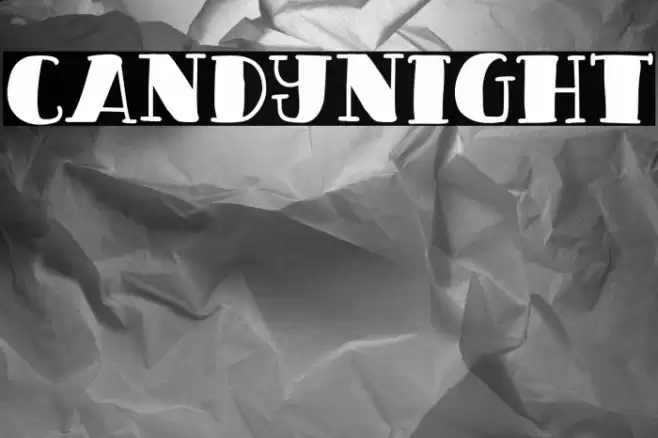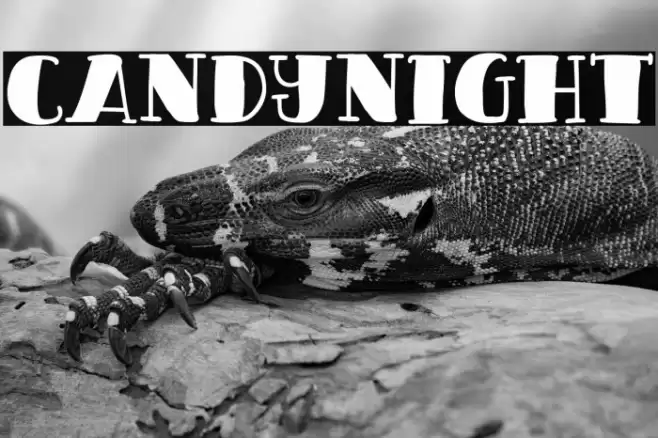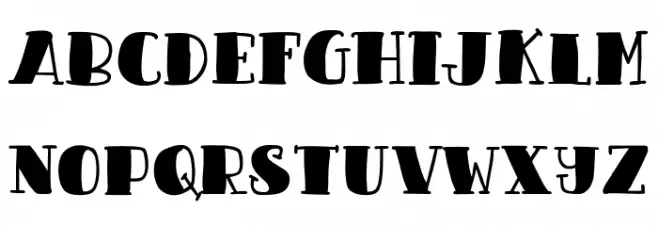
CandyNight Font
CandyNight Description
This font features a playful and whimsical design, characterized by its bold and quirky letterforms. Each character exhibits a unique blend of curves and angles, creating a sense of movement and fun. The uppercase letters are particularly striking, with exaggerated serifs and varying stroke widths that add to the font's dynamic appearance. The lowercase letters maintain the same playful style, ensuring consistency throughout. The numbers and special characters are equally distinctive, making this font versatile for various creative applications. Its boldness and decorative elements make it ideal for eye-catching designs.
A playful and bold decorative font with quirky letterforms from Regular fonts.
- Proposed Projects: Perfect for children's book covers, playful branding, party invitations, and creative posters.
- Overall Style: Playful and Whimsical